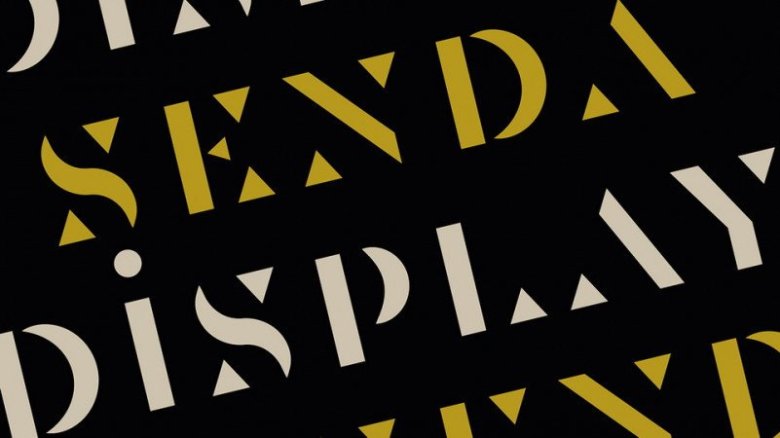
Senda Typeface
Hello! This is a font display is made by hand, inspired by classic labels and poster. If you are looking for a display style suited to your design then it’s here! Introducing Senda Font. Senda Typeface is a custom stencil font designed for the branding of “Pair Up”, a workshops focused company. “Pair Up” aims to help people exercise both sides of their brains, developing workshops for both the left (logic) and right (creativity) side.
Perfect to use for Logotype, Letterhead, Poster, Apparel Design, Label and etc.